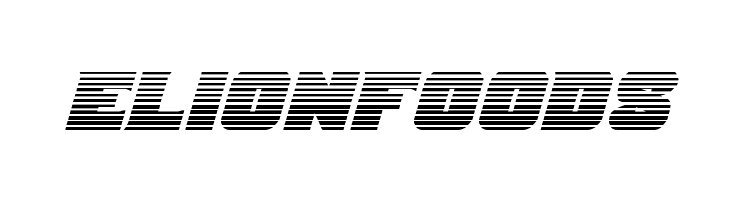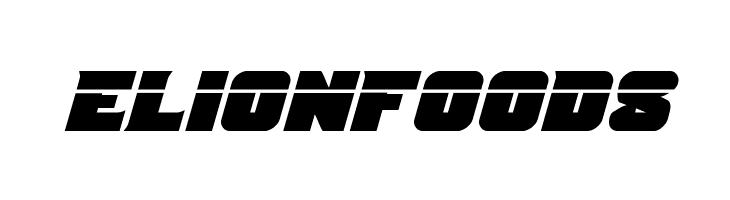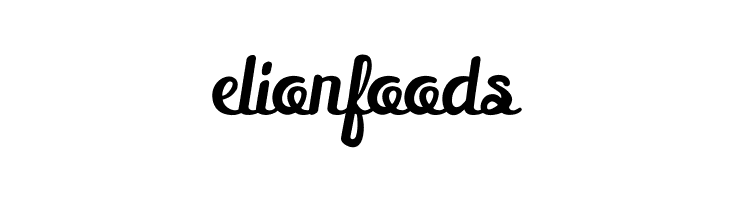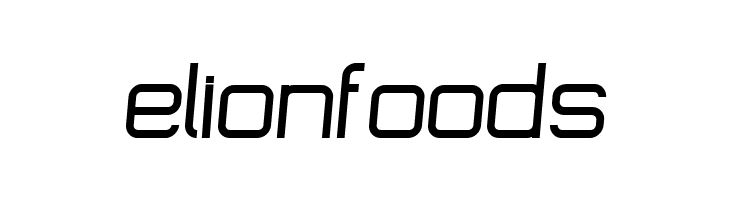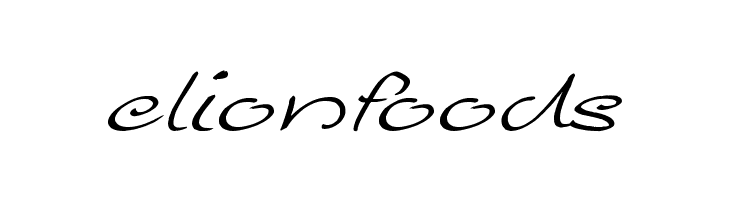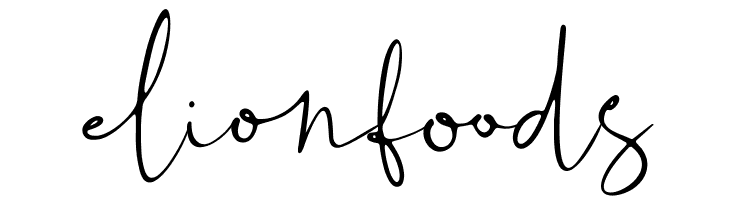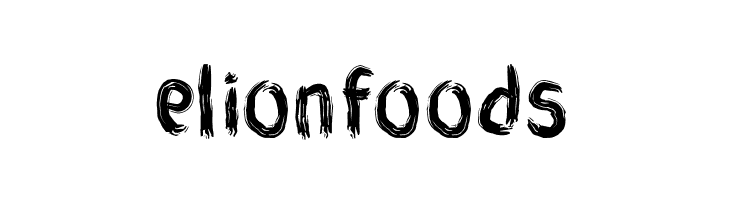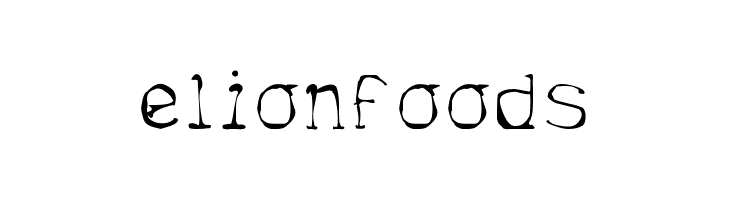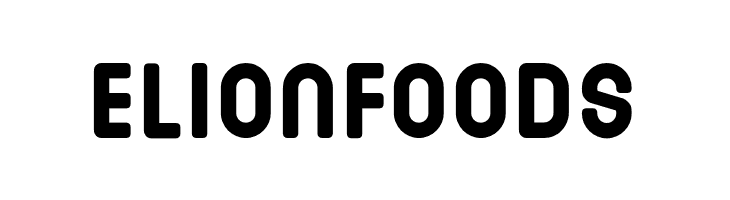
A bold, dynamic font with a gradient effect created by horizontal lines, offering a modern and energetic look.
A bold, futuristic font with angular, dynamic characters.
A lively and elegant script font with smooth, flowing connections.
A modern, sleek font with a futuristic and streamlined design.
An elegant script font with flowing, connected characters and ornate flourishes.
A modern, handwritten script font with a casual and flowing style.
A bold, brush-stroke style font with a dynamic, artistic energy.
A decorative, artistic font with thin lines and looped elements.
A whimsical and artistic font with irregular, hand-drawn letterforms.
A bold, geometric sans-serif font with rounded edges and uniform width.